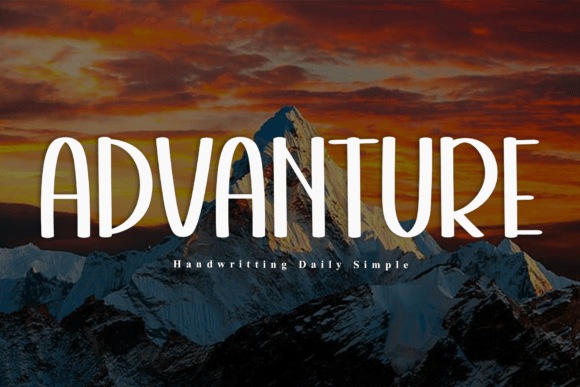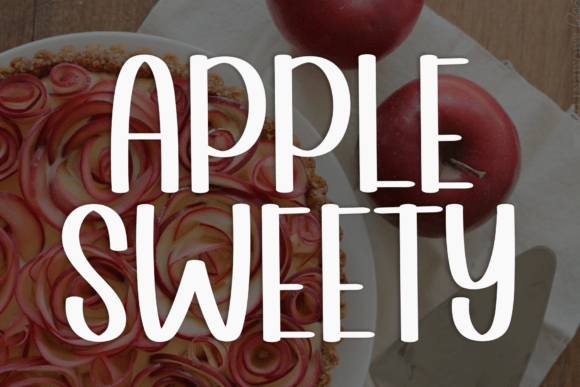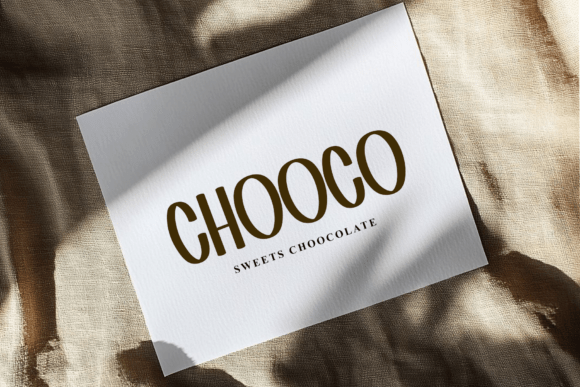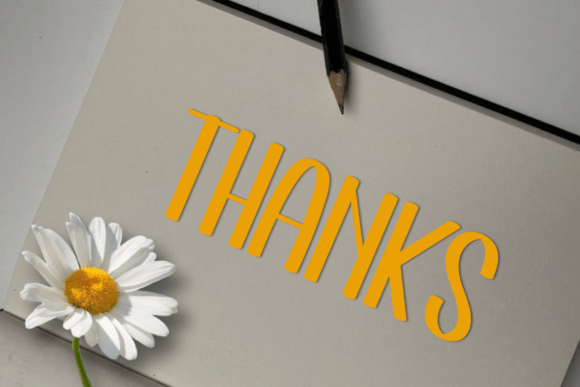
Fantasy Font: The Timeless Handwritten Font for Stunning Designs
Fantasy Font is a lovely and timeless handwritten font that has captured the hearts of designers and crafters alike. Its unique and beautiful touch makes it the perfect choice for creating eye-catching logos, branding, and quotes that stand out from the crowd. In this article, we’ll dive into the world of Fantasy Font and explore its features, benefits, and uses.
The Beauty of Fantasy Font
Fantasy Font is a handwritten font that exudes elegance and sophistication. Every letter has a distinct and beautiful touch, which gives it a personal and human feel. The font’s unique characteristics make it perfect for designs that require a touch of whimsy and romance. Whether you’re creating a logo, branding, or quote, Fantasy Font is sure to make your design come alive.
Features of Fantasy Font
- Unique and Beautiful Touch: Each letter in Fantasy Font has a distinct and beautiful touch that sets it apart from other fonts.
- Handwritten Style: Fantasy Font is a handwritten font that gives it a personal and human feel.
- Timeless Design: The font’s design is timeless and classic, making it suitable for a wide range of design projects.
- Elegant and Sophisticated: Fantasy Font exudes elegance and sophistication, making it perfect for designs that require a touch of luxury.
Benefits of Using Fantasy Font
Using Fantasy Font in your designs comes with a range of benefits. Here are some of the advantages of using this beautiful font:
- Stand Out from the Crowd: Fantasy Font is a unique and distinctive font that will make your design stand out from the crowd.
- Emotional Connection: The font’s handwritten style and unique touch create an emotional connection with the reader, making your design more relatable and engaging.
- Versatility: Fantasy Font is a versatile font that can be used for a wide range of design projects, from logos and branding to quotes and posters.
Uses of Fantasy Font
Fantasy Font is a versatile font that can be used for a wide range of design projects. Here are some of the most popular uses of this beautiful font:
- Logos and Branding: Fantasy Font is perfect for creating eye-catching logos and branding that stand out from the crowd.
- Quotes and Posters: The font’s unique and beautiful touch makes it perfect for creating stunning quotes and posters.
- Wedding and Event Design: Fantasy Font is a popular choice for wedding and event design, adding a touch of elegance and sophistication to your designs.
- Digital and Print Media: The font can be used for a wide range of digital and print media, from social media graphics to brochures and flyers.
Tips for Using Fantasy Font
Here are some tips for using Fantasy Font in your designs:
- Use it Sparingly: Fantasy Font is a bold and eye-catching font, so use it sparingly to avoid overwhelming your design.
- Pair it with Other Fonts: The font pairs well with other fonts, so experiment with different combinations to find the perfect look for your design.
- Adjust the Size and Color: Adjust the size and color of the font to suit your design and make it more impactful.
Fantasy Font is a beautiful and timeless handwritten font that is perfect for creating eye-catching logos, branding, and quotes. Its unique and beautiful touch makes it a standout font that will make your design come alive. With its versatility, elegance, and sophistication, Fantasy Font is a must-have font for designers and crafters alike.